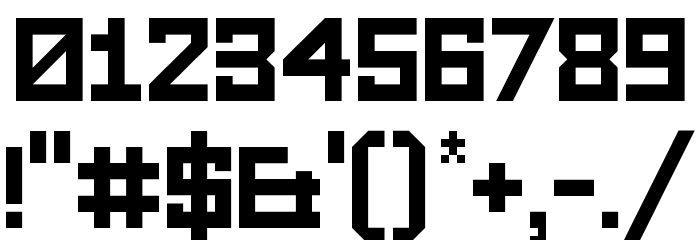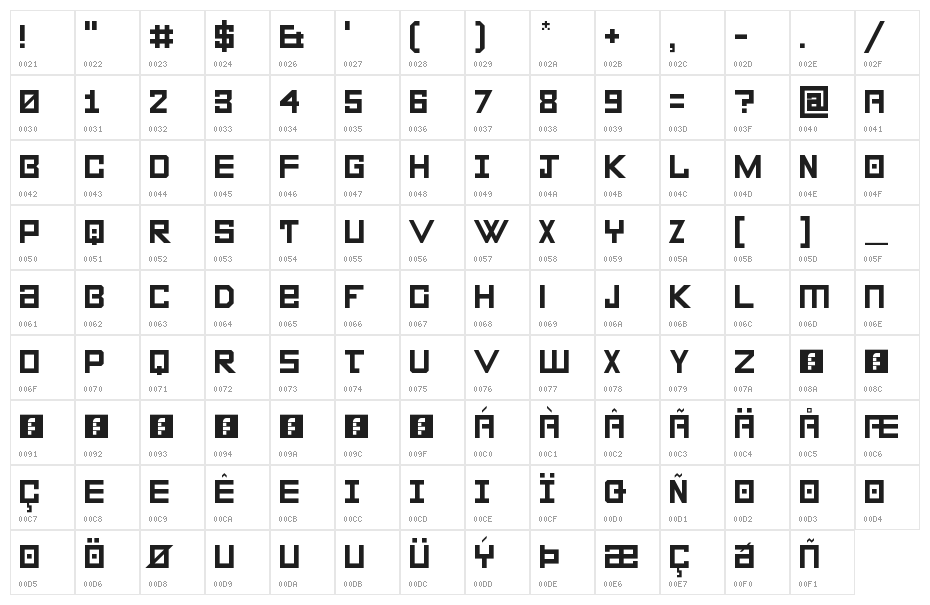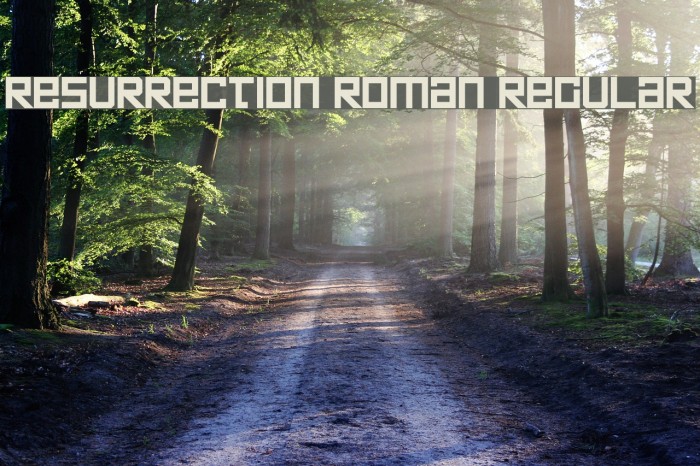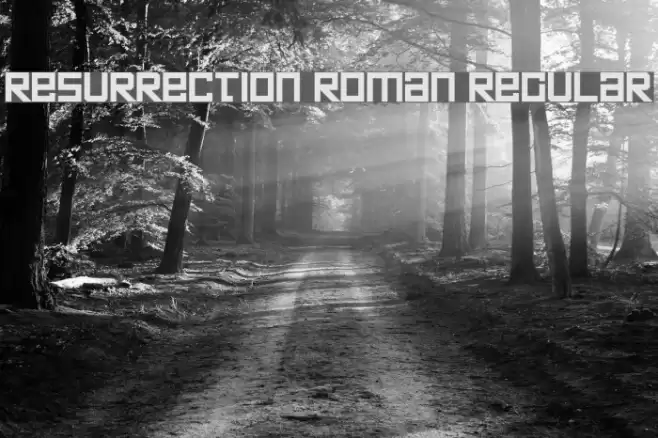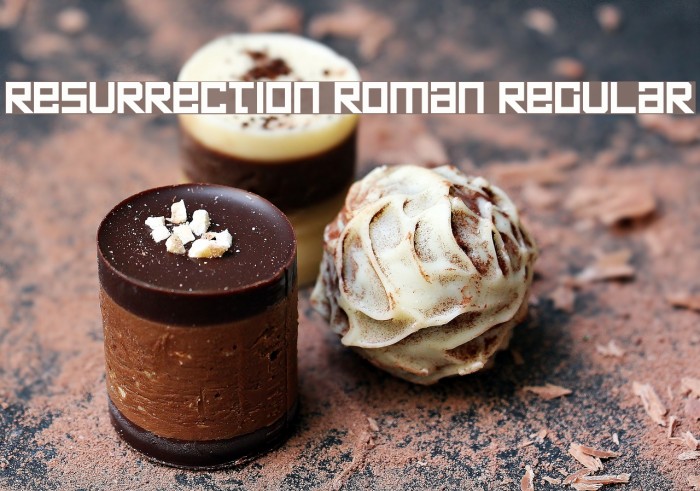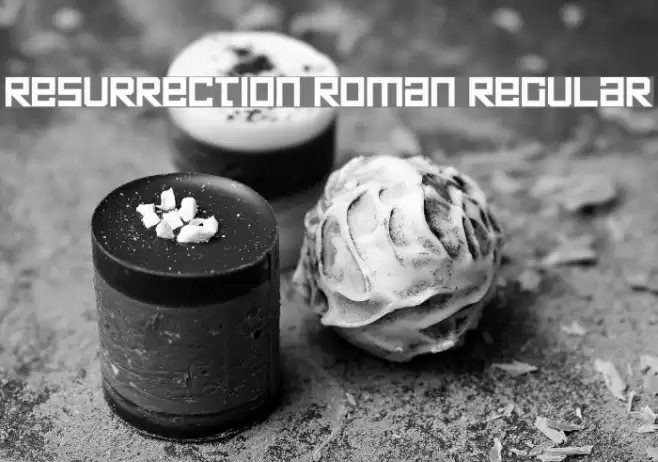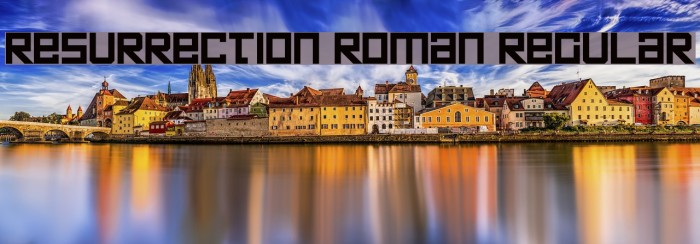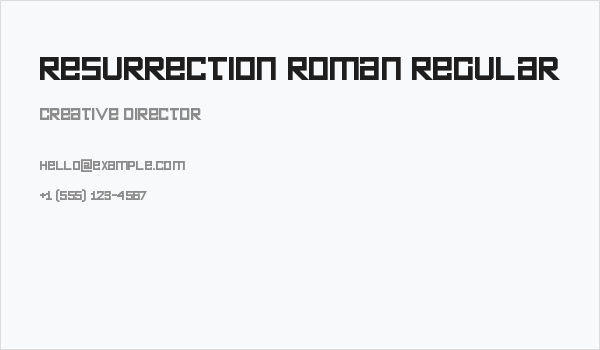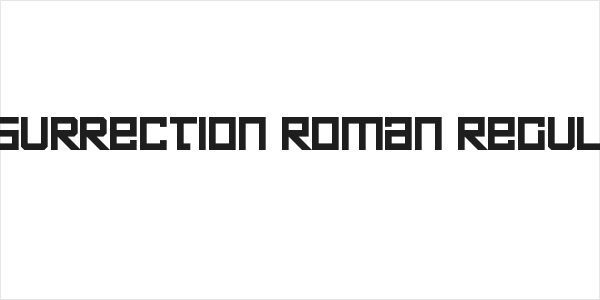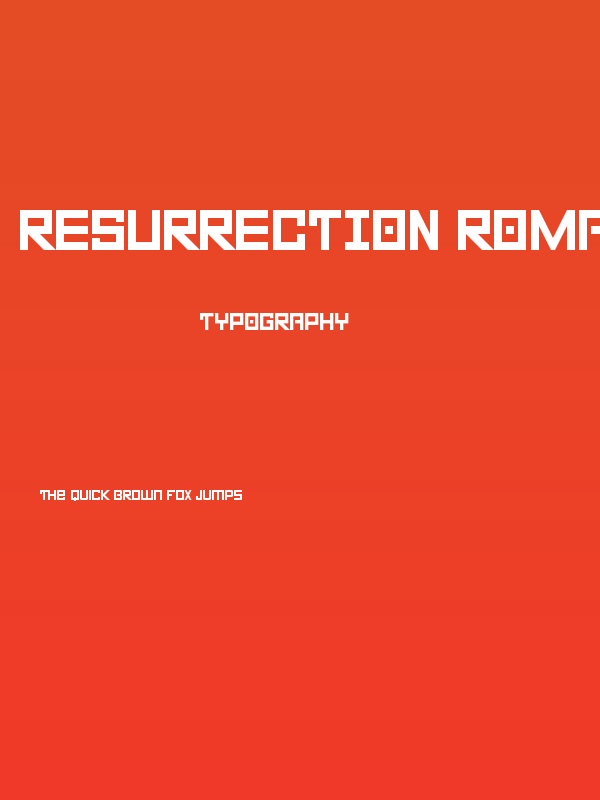
Resurrection Roman Regular Font
Resurrection Roman Regular Description
This font features a bold, geometric style with a strong presence. The characters are constructed with sharp, angular lines and a uniform thickness, giving it a modern and futuristic appearance. The uppercase and lowercase letters maintain a consistent design, with a blocky and robust structure. The numerals and special characters follow the same design principles, ensuring a cohesive look across all glyphs. The font's distinct style makes it ideal for attention-grabbing designs, where a bold statement is necessary. Its unique aesthetic is both functional and visually striking, making it suitable for a variety of creative applications.
| Proposed Projects | Ideal for branding, posters, headlines, and digital media where a strong visual impact is desired. |